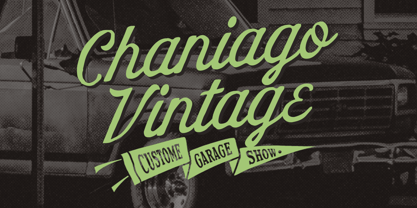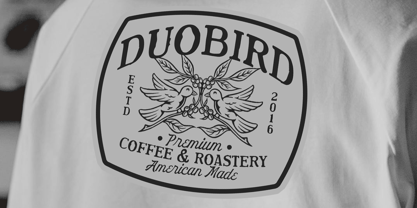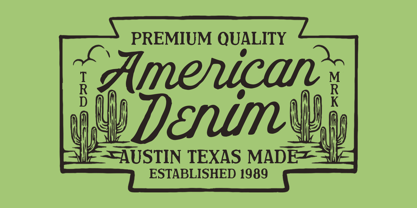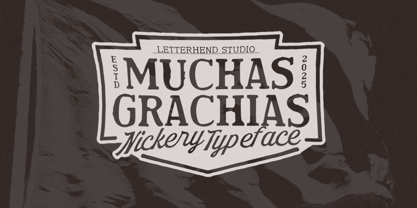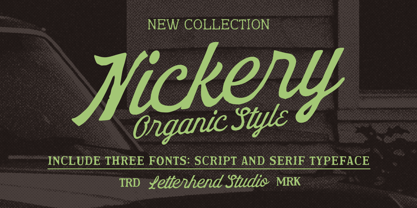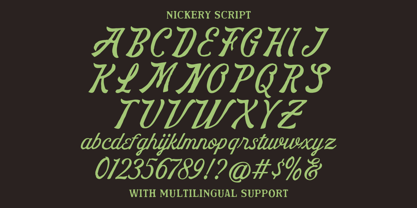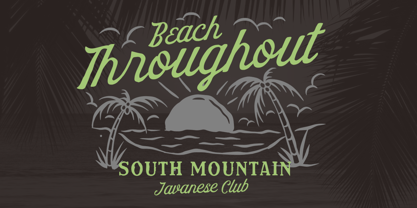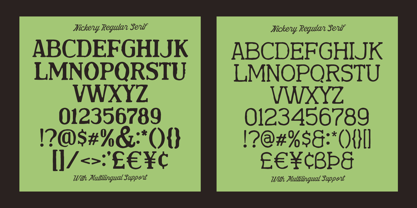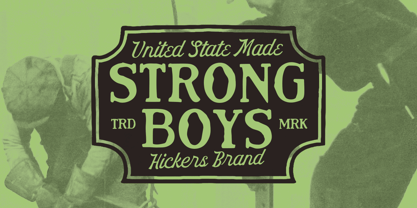
Nickery
by Letterhend
The Nickery Font Family was designed by Hendry Juanda and published by Letterhend. Nickery contains 3 styles and family package options. More about this family
Nickery is a bold and organic-style font that includes three styles: script and serif typefaces. It blends a handcrafted, vintage look with clean readability, making it perfect for logos, product packaging, posters, branding, and apparel. With its natural flow and classic charm, Nickery brings a warm, rustic feel to both modern and retro design projects.
Designers: Hendry Juanda
Foundry: Letterhend